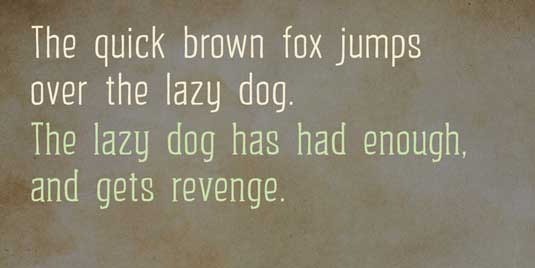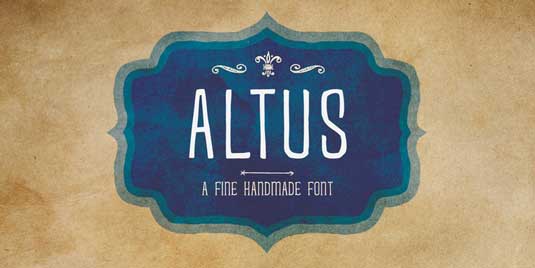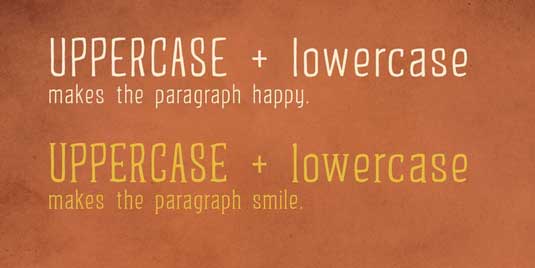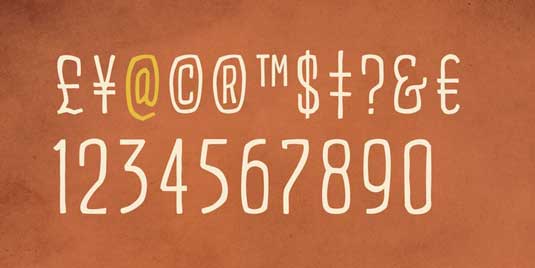
Font of the day: Altus
Altus by Jay Hilgert
Today's typeface of choice is Altus, a legible display font with both a sans-serif and serif version. A playful, hand drawn font created by type designer Jay Hilgert, Altus is great for any child-themed design.